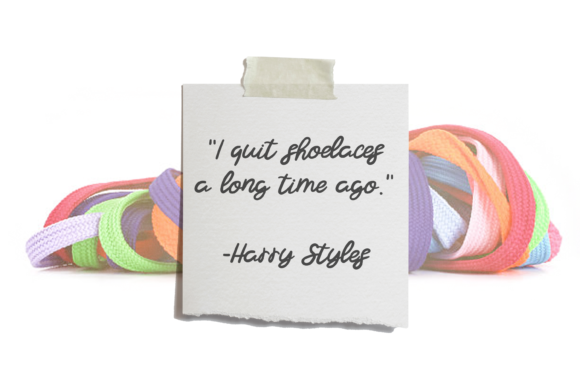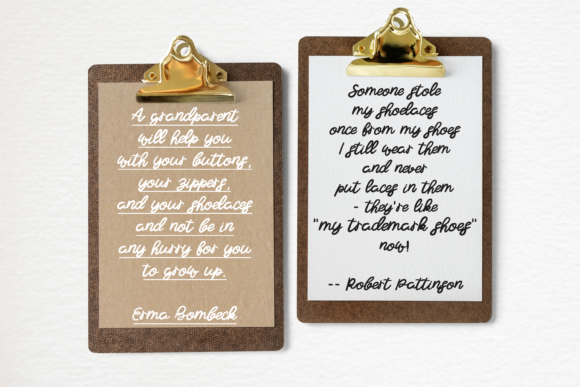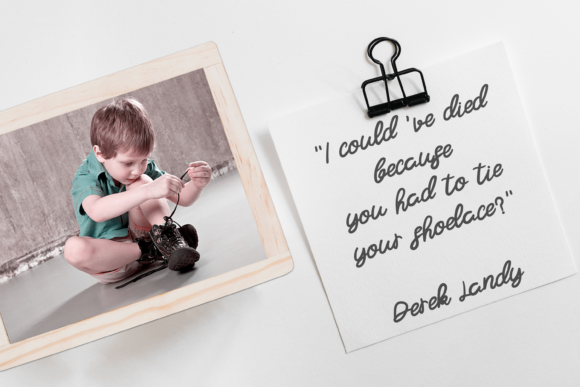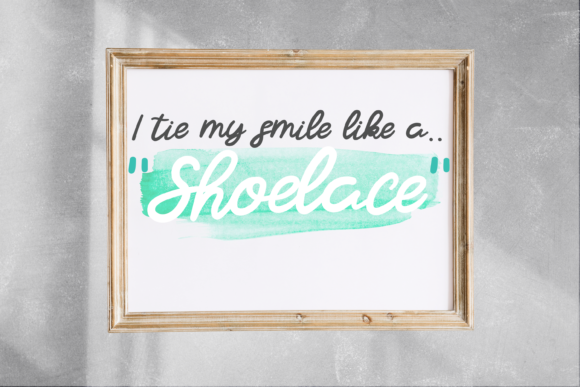
About Shoelace Font
Shoelace is a bouncy & quirky handwritten font. Get inspired by its incredibly cursive feel. Use this font to turn any design project into a standout!